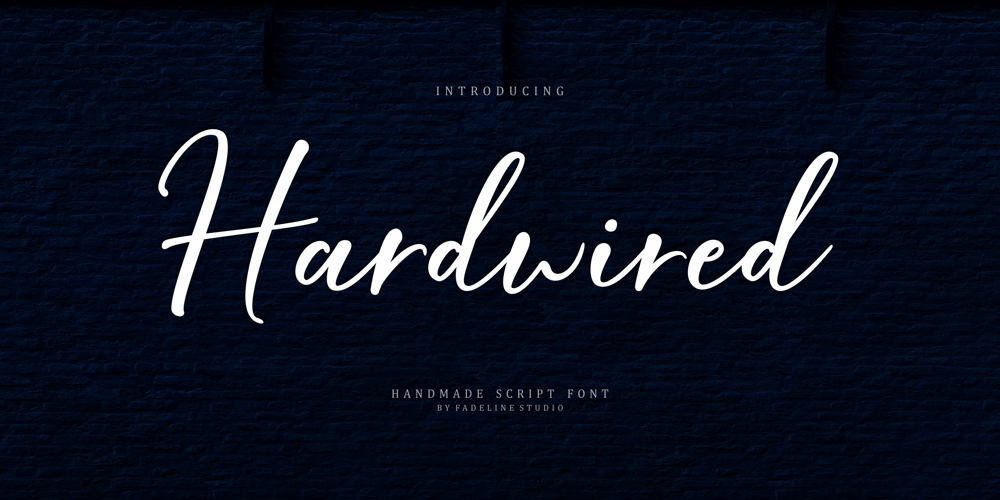
Hardwired Font Family was designed by Juni Fadil Putra and published by FadeLine Studio. Hardwired contains 1 styles and family package options. Hardwired a new handmade script with a style elegant, sweet and simple. Made with great care to provide the natural and modern elements. This font has many advantages although it looks ordinary. The great thing about this font is you can find some style when you use it, examples such as natural handwriting style, unique, simple, elegant and bold.With a style like this, this font will be suitable in use for logo’s, branding projects, homeware designs, product packaging, mugs, quotes, posters, shopping bags, logo’s, t-shirts, book covers, name card, invitation cards, greeting cards, and all your other lovely projects.